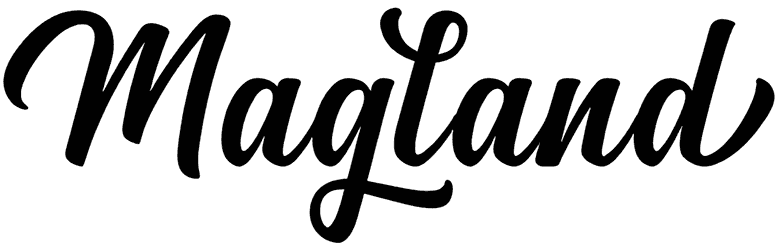
Magland Font
Magland is a beautiful, romantic font perfect for adding a touch of class to your documents. The twists and flourishes of this script font can highlight any text and turn it into one of your strengths in design.
With this luxurious font, you can upgrade all your projects from ordinary to excellent and create a personal aesthetic for them. So if you need some human touch in designing greeting cards, wedding invitations, and packaging, Magland is your tool for success.